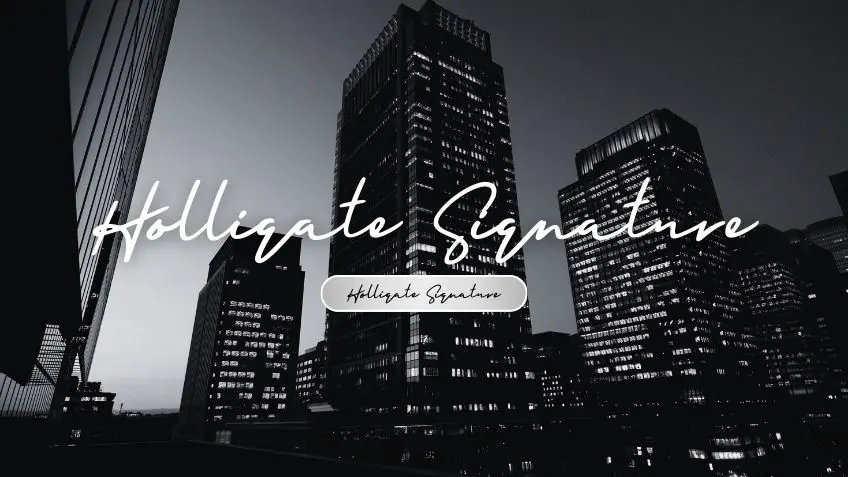
The font Holligate Signature Demo, designed by GlyphStyle, falls under the Script category & Holligate Signature font family. Its smooth, flowing letterforms make it a versatile choice for projects that require both elegance and readability. Holligate Signature is particularly well-suited for Social Media and Marketing, Branding and Logos, Other official communications and digital platforms and Wedding and Event Stationery. With its balance of simplicity and decorative appeal, this font brings a polished touch to both personal and professional designs.